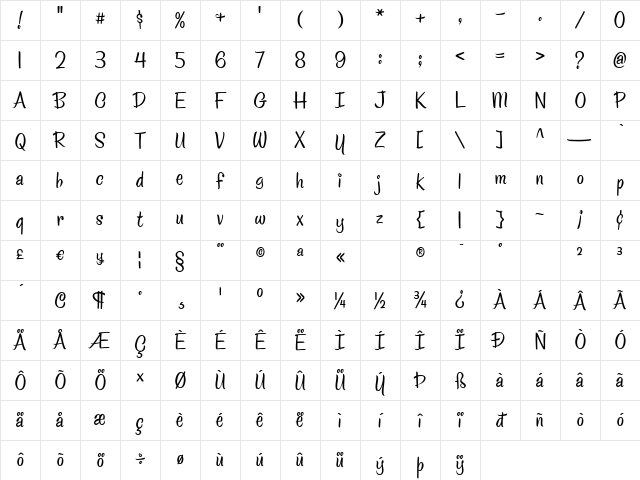
Chicken Basket Medium Free Font
Chicken Basket Medium
Foundry: Font Diner
Designer: Stuart Sandler
Design Context for Chicken Basket
Chicken Basket is a composed and adaptable typeface that performs quietly and consistently across a wide range of design contexts.